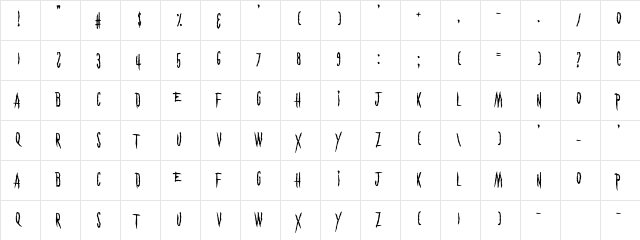
Eyes Wide Suicide Regular Font Preview
Eyes Wide Suicide Regular
Eyes Wide Suicide Regular Font Details
| Designer | NAL |
Design Context for Eyes Wide Suicide Typeface
Eyes Wide Suicide is a composed and adaptable typeface that performs quietly and consistently across a wide range of design contexts.